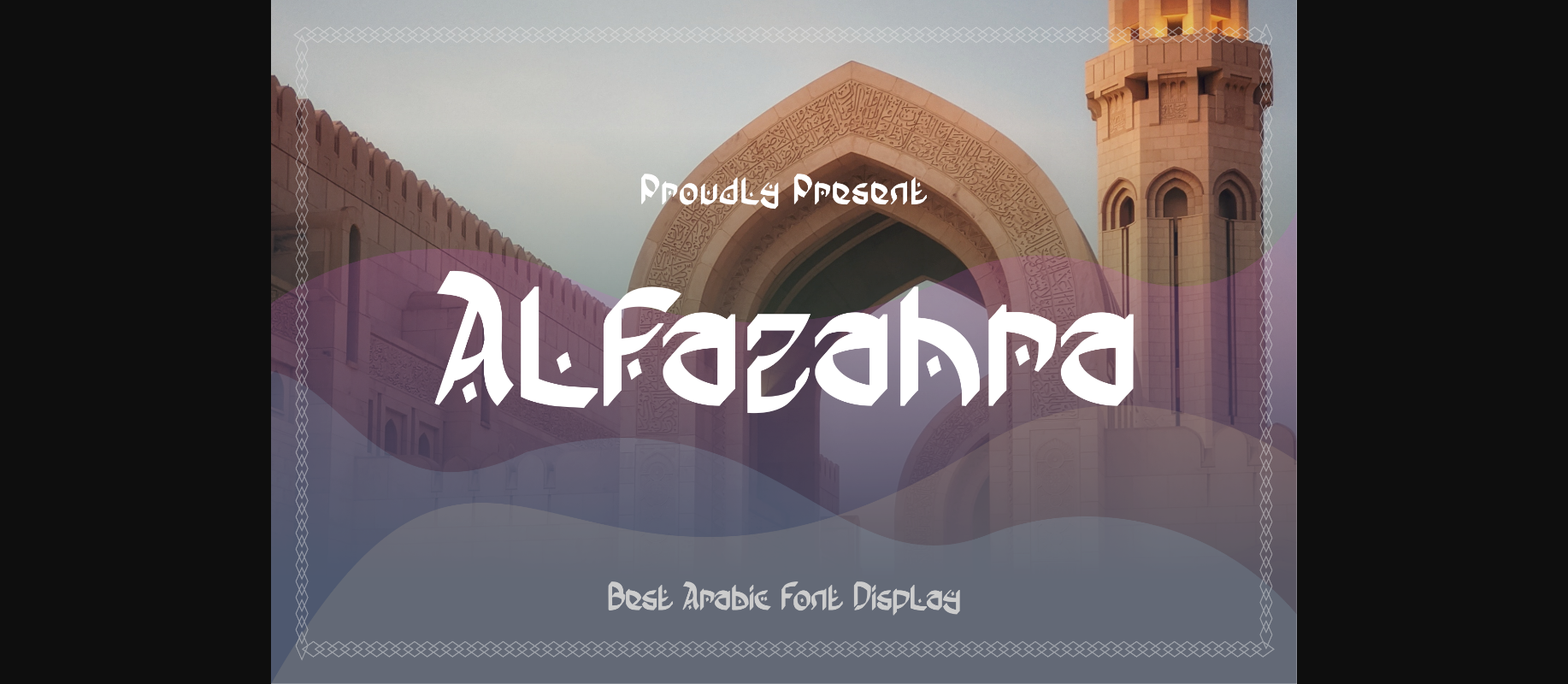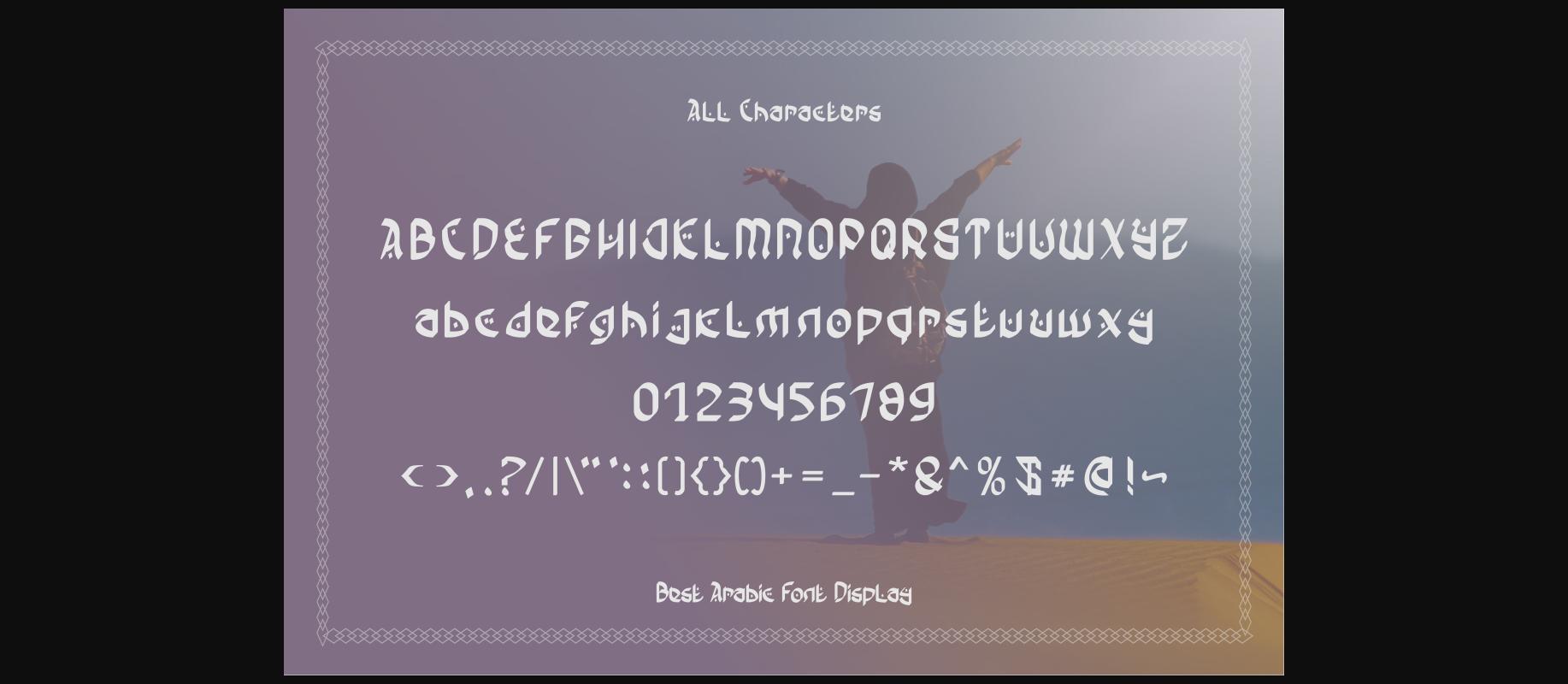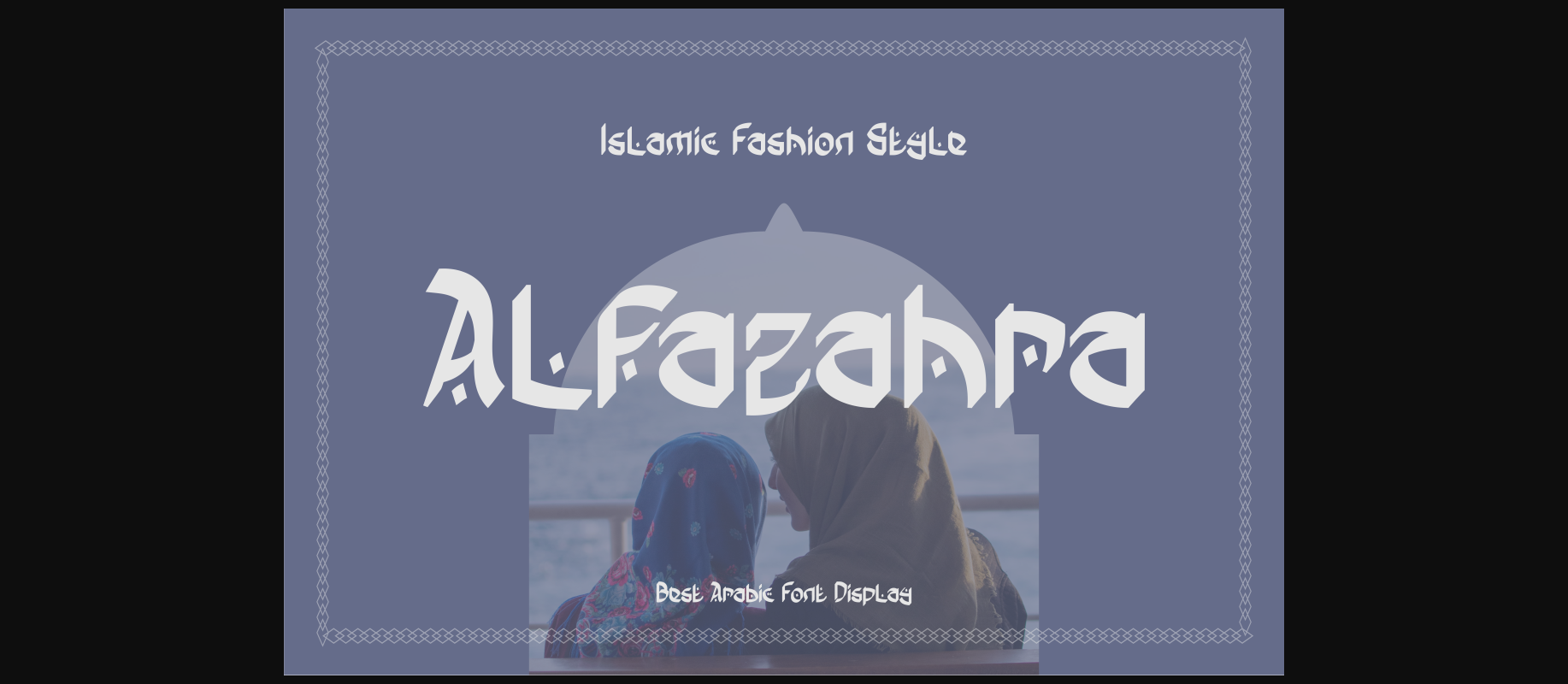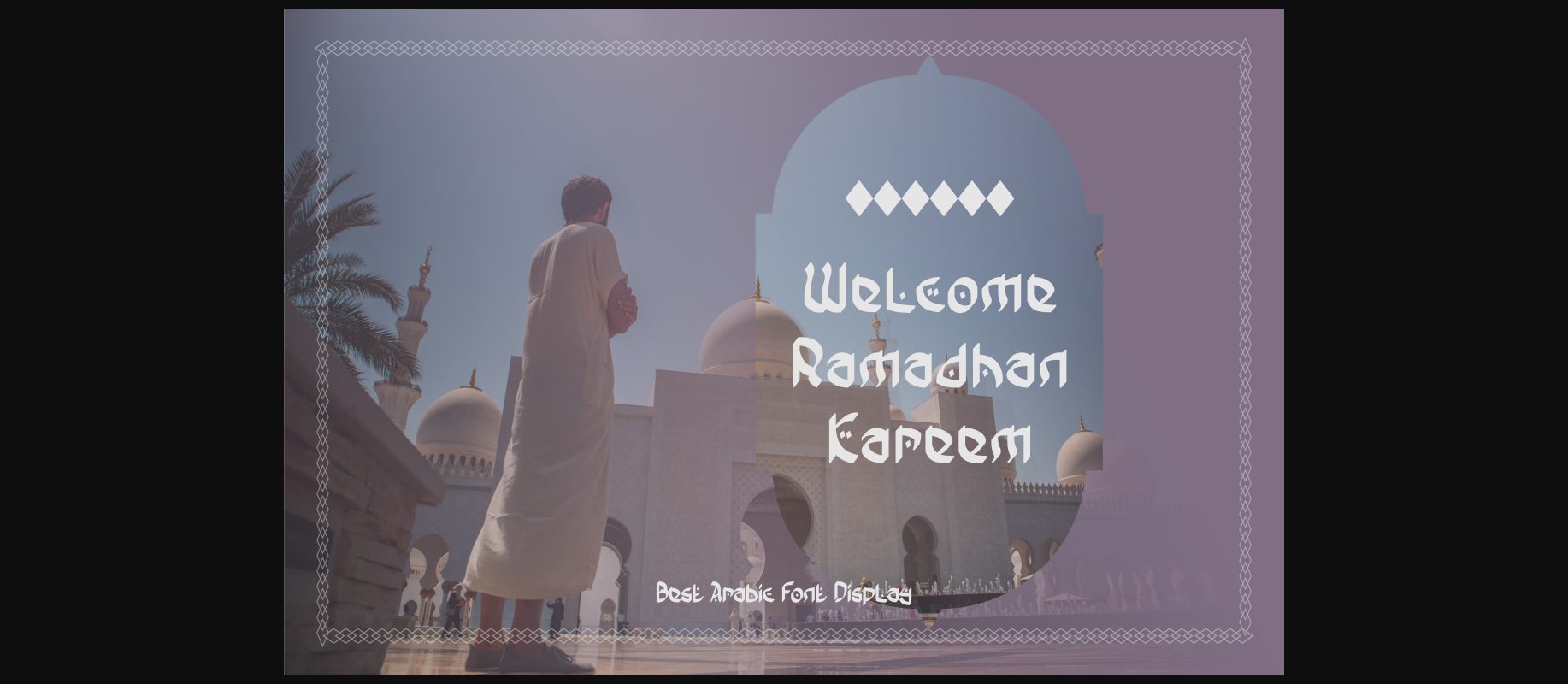
About Alfazahra Font
Alfazahra is a unique Arabic-style display font that captivates with its intricate calligraphic strokes and ornate details. Inspired by traditional Arabic typography, it adds an elegant and cultural touch to designs, making it ideal for posters, invitations, and branding projects seeking a sophisticated and distinctive aesthetic.